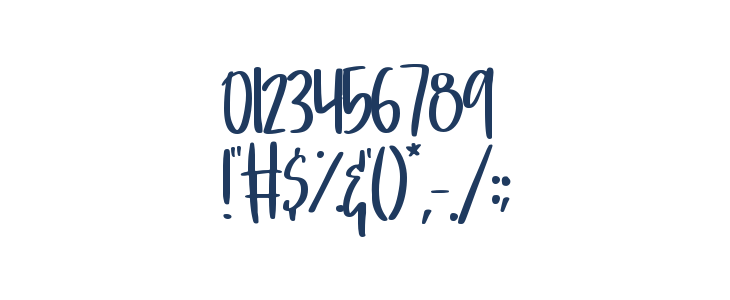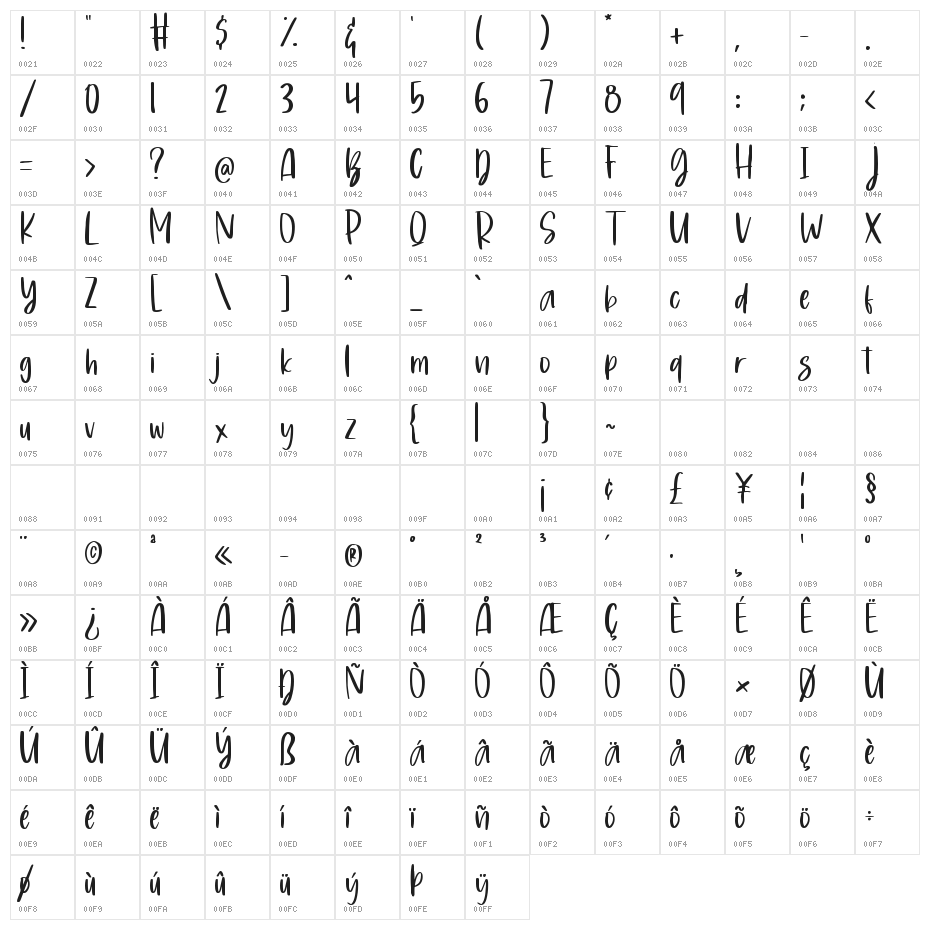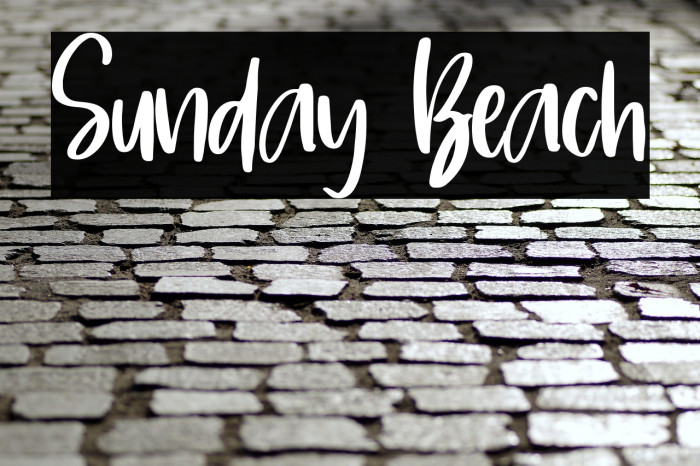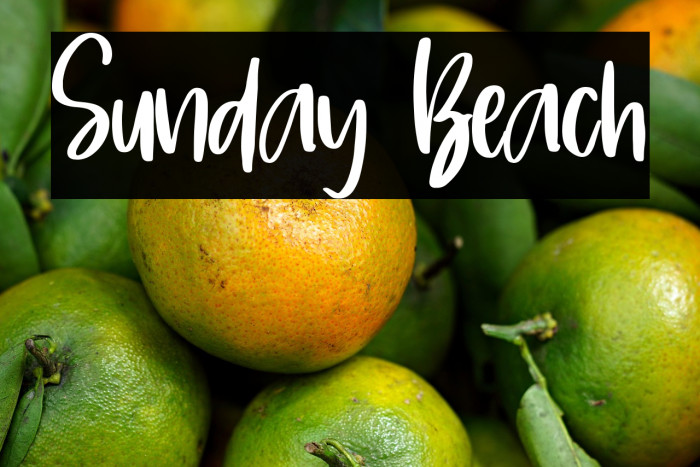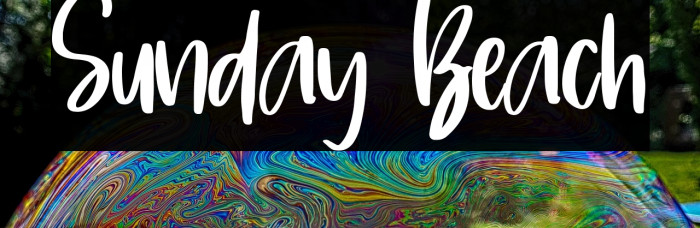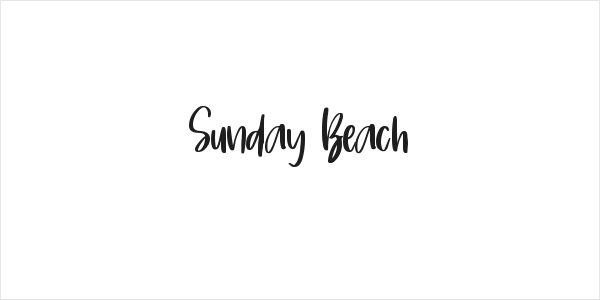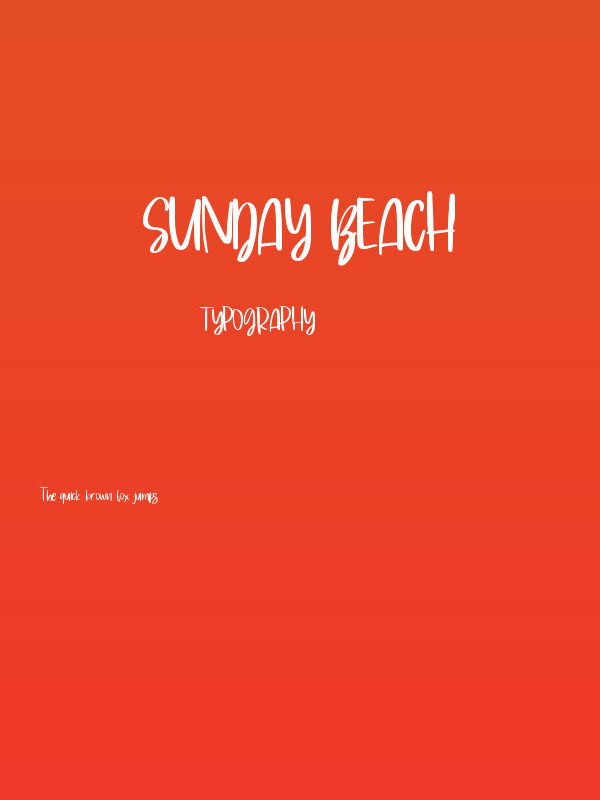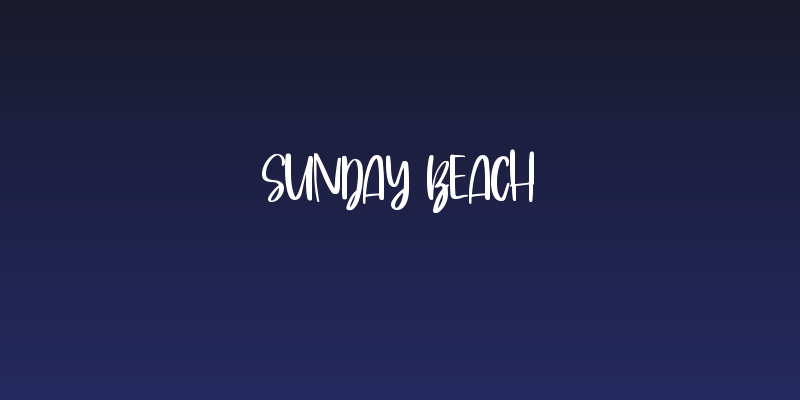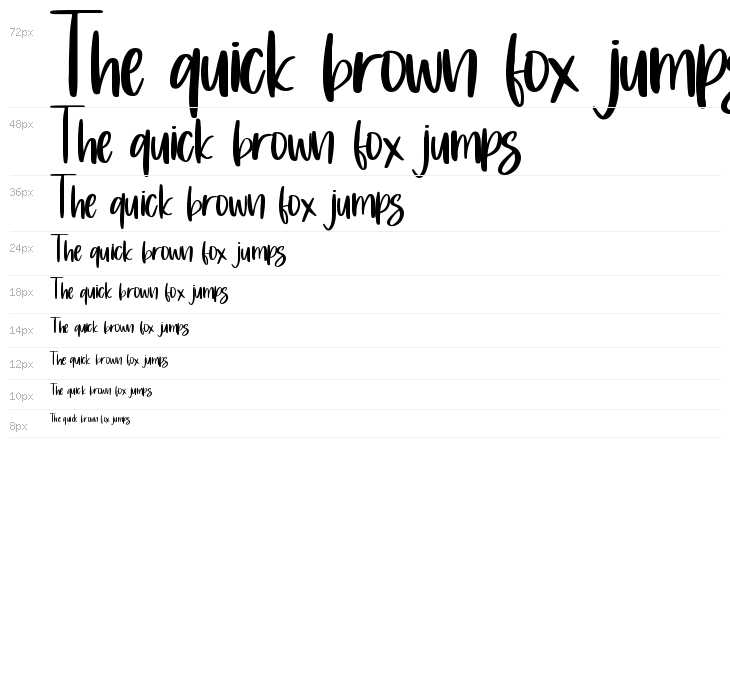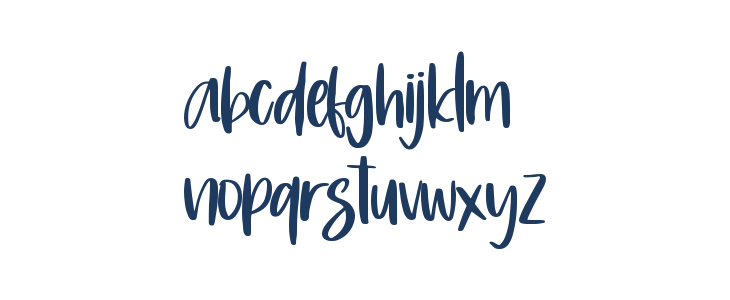
Sunday Beach Font
Sunday Beach Description
This font features a playful and casual handwritten style, characterized by its tall, narrow letters with a slight slant. The strokes are smooth and fluid, giving it a relaxed and informal appearance. The uppercase and lowercase letters maintain a consistent style, with rounded edges and a friendly demeanor. The numerals are bold and easy to read, while the special characters complement the overall aesthetic. This font's unique charm makes it suitable for creative and fun projects.
| Proposed Projects | Ideal for greeting cards, social media graphics, posters, and branding that requires a personal touch. |